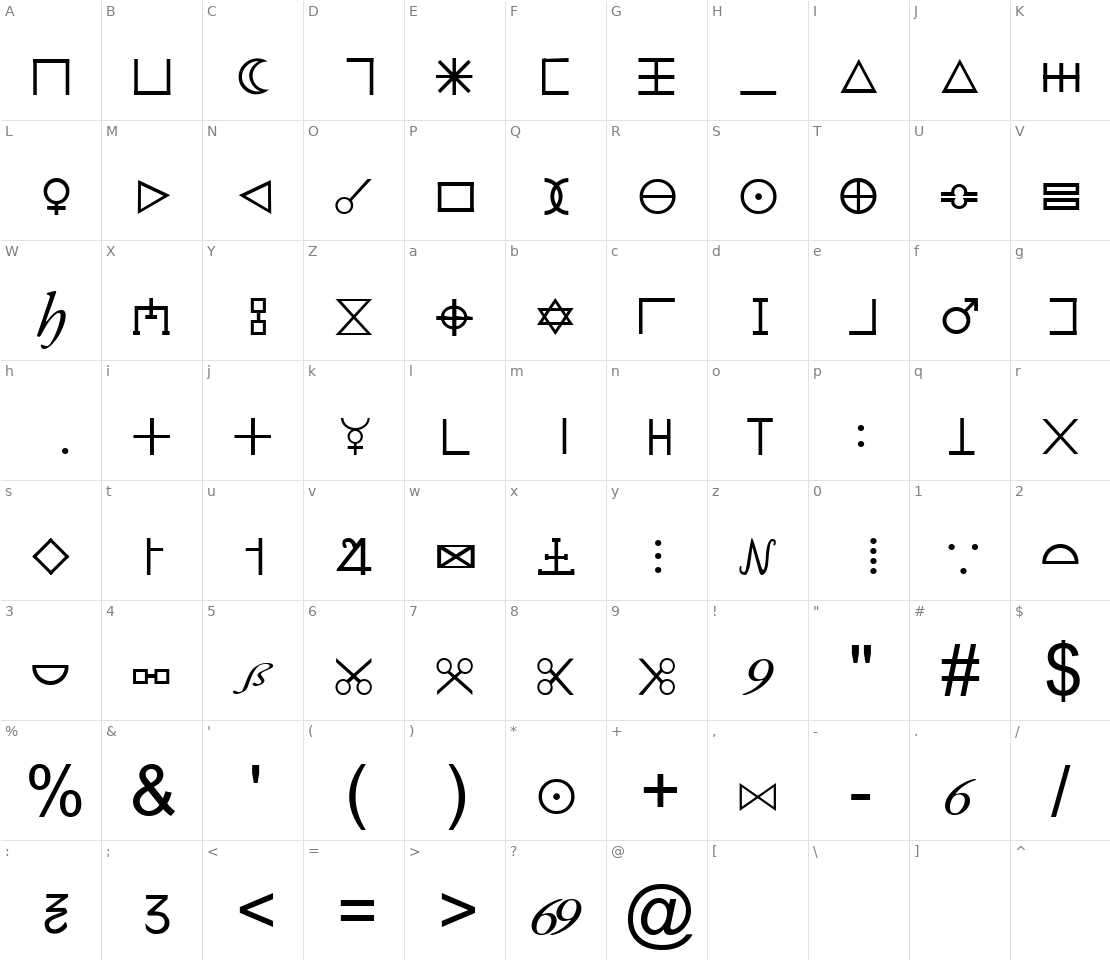
Illuminati Dirigens Berlin
by Illuminati Rex
Illuminati Dirigens Berlin is a monoline symbol font from Illuminati Rex built around occult and esoteric geometric forms rather than conventional letterforms. The glyphs read like a cipher alphabet, all clean lines and mystical geometry, suggesting secret societies and hidden knowledge. Useful for decorative purposes, themed design work, or anywhere you need symbols that feel like they belong in a grimoire or on the wall of a forbidden archive.